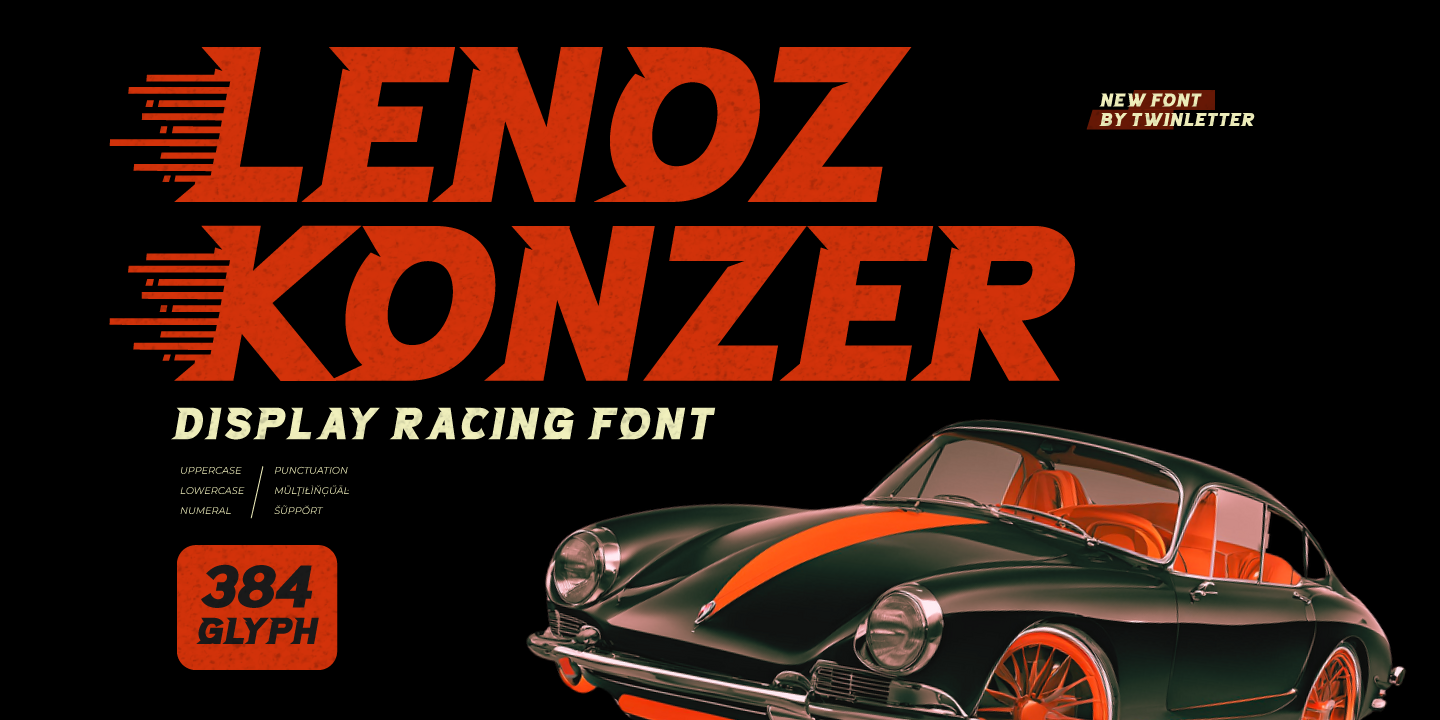
Lenozkonser Font is excellent for concert venue branding, music festival graphics, live performance promotions, band merchandise design, entertainment event marketing, concert hall signage, music industry communications, artist portfolio layouts, sound equipment packaging, and musical theater productions.
What makes Lenozkonser Font exciting is its dynamic musical energy that perfectly captures the electrifying atmosphere and passionate performance spirit found in live concert experiences and musical entertainment venues. This typeface features rhythmic letterforms with harmonic proportions and stage-inspired details that evoke the excitement and emotional connection of live musical performances. The font's energetic personality and concert hall authenticity make it ideal for music industry brands seeking to convey artistic passion, live entertainment excellence, and the transformative power of musical performance.
Lenozkonser Font family includes multiple weight variations and performance-inspired alternatives that enhance its musical character while providing design flexibility for entertainment and concert applications. The font features rhythmic ligatures, stage-themed ornaments, and performance character variations that create authentic concert atmosphere for music and entertainment branding.
Music venues and entertainment companies consistently choose Lenozkonser Font Free Download for projects requiring authentic musical appeal and live performance credibility. The font's concert-ready character excels in applications targeting music lovers, concert-goers, and entertainment enthusiasts who appreciate genuine musical experiences and live performance artistry. Whether you're designing for concert halls, music festivals, or entertainment venues, this dynamic typeface delivers the musical authenticity and live performance energy that resonates with audiences seeking genuine artistic connection and the unforgettable excitement that only live musical performances can provide.